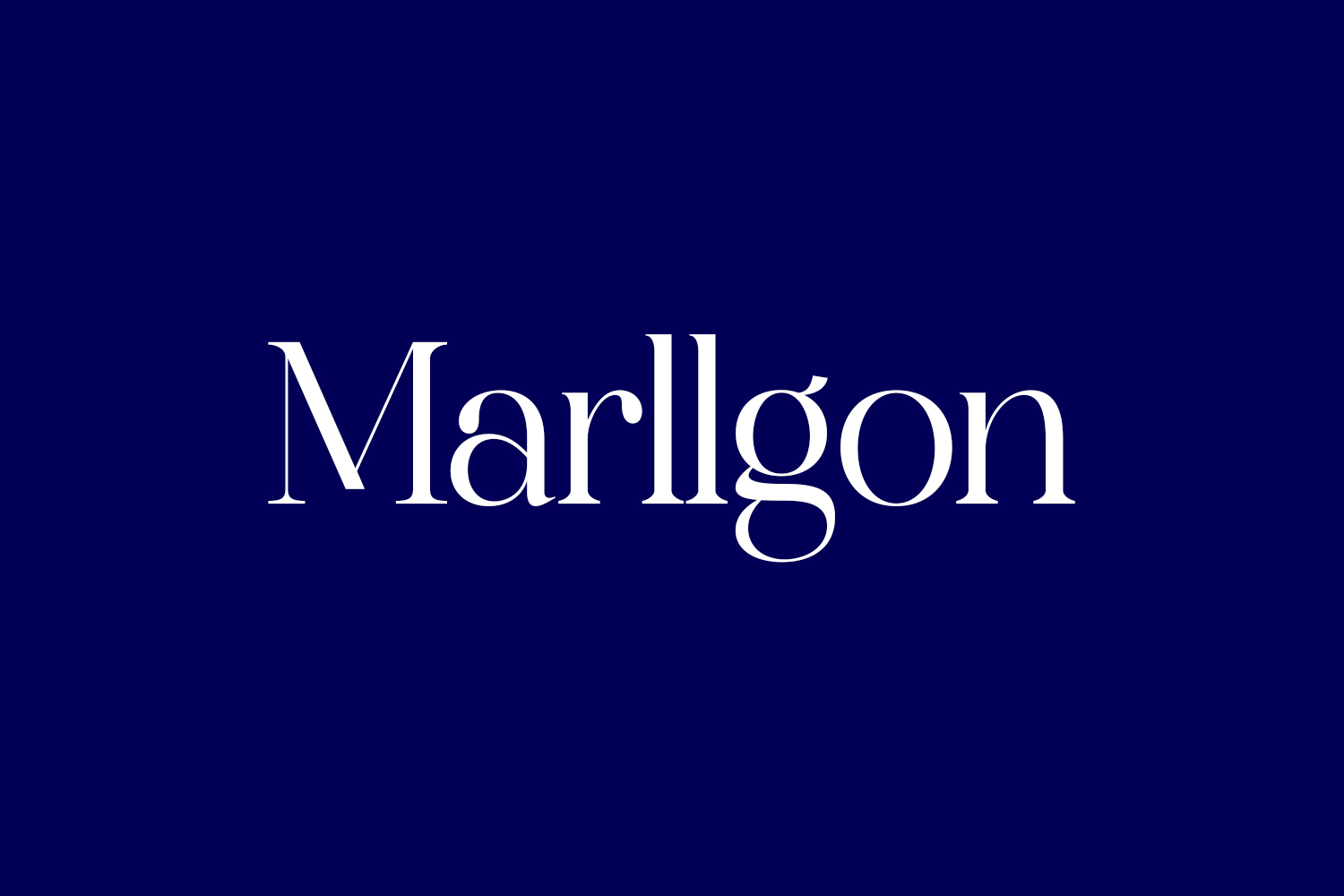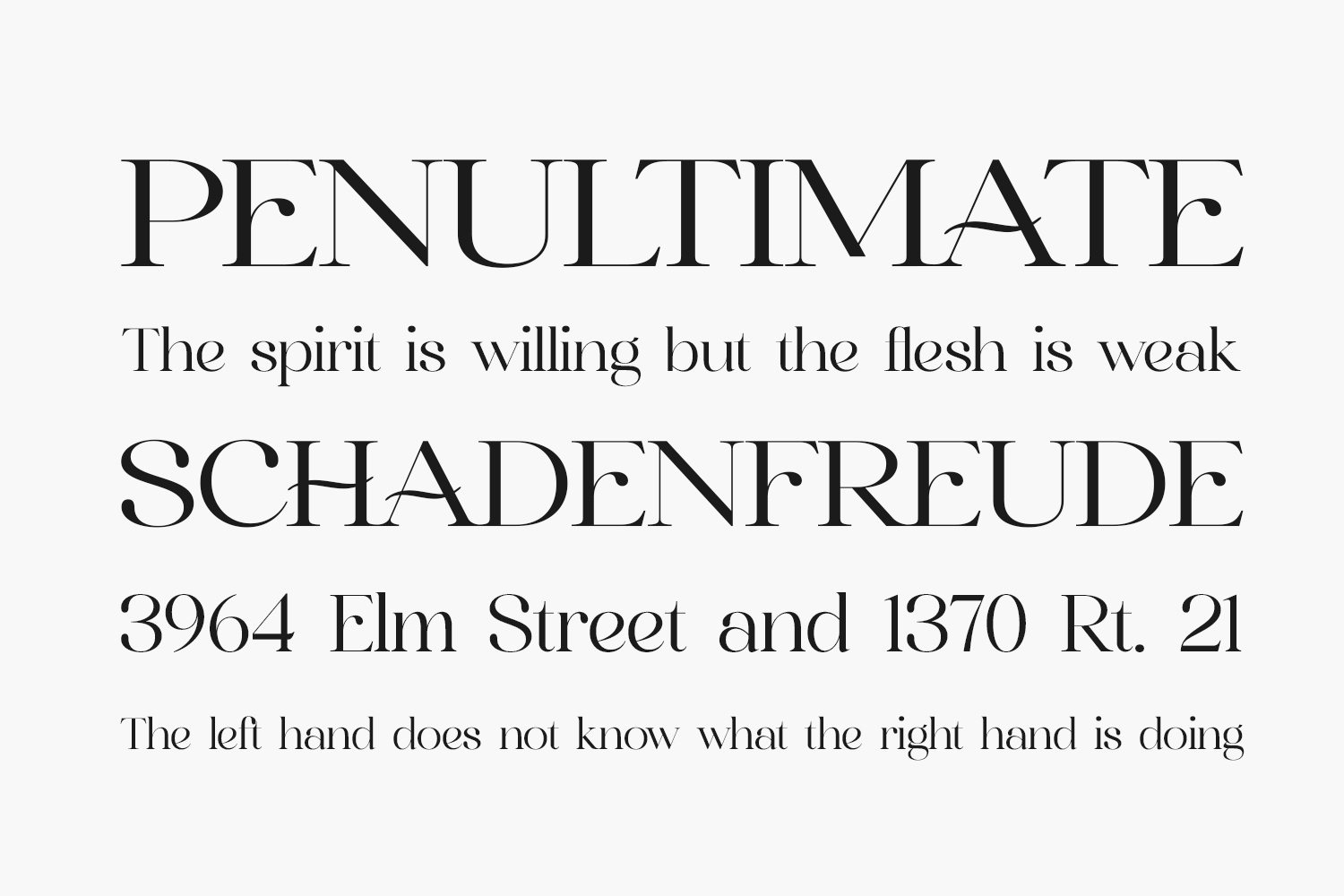
Discover Marllgon Free Font, a contemporary and sophisticated serif font boasting a distinctive style and an elegant, luxurious appearance. This typeface is an excellent choice for creating stylish logos, designing book or movie titles, elevating fashion brands, enhancing magazines, clothing, lettering, quotes, and a diverse range of design projects. Marllgon Free Font is free for personal use only. Please purchase the full version for commercial use.